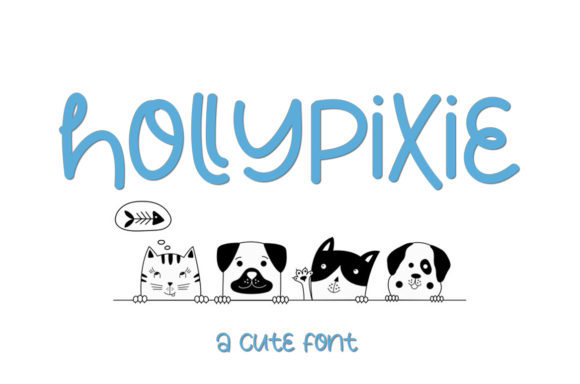
Escape into a world of whimsical wonder with Holly Pixie Font! This adorable script font, lovingly crafted by Fontruly, will weave its magic into your digital creations. Its charmingly casual style and warm, friendly vibe make it the perfect choice for capturing the innocence and joy of childhood.
Imagine transforming your Instagram feed into a whimsical tapestry with Holly Pixie's playful curves and bubbly shapes. Let your DIY projects blossom into enchanting masterpieces as this handwritten font breathes life into your imagination. Holly Pixie is not just a font; it's a gateway to a realm of endless creative possibilities.
With every stroke of your pen or click of your mouse, Holly Pixie invites you to create a symphony of smiles, laughter, and heartfelt connections. Its versatility knows no bounds, making it the ideal companion for a wide range of projects. From heartwarming greeting cards to enchanting storybooks, Holly Pixie will add a touch of magic to every word you write.
So, embrace the whimsical charm of Holly Pixie Font and watch your creative dreams soar to new heights. Its playful spirit will ignite your imagination, while its friendly embrace will warm the hearts of all who behold it. Let Holly Pixie guide you on an unforgettable journey of creativity, where every stroke brings a smile to your face.